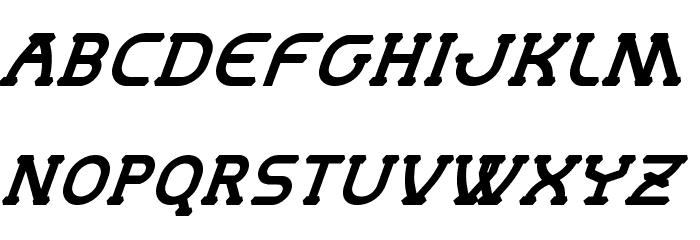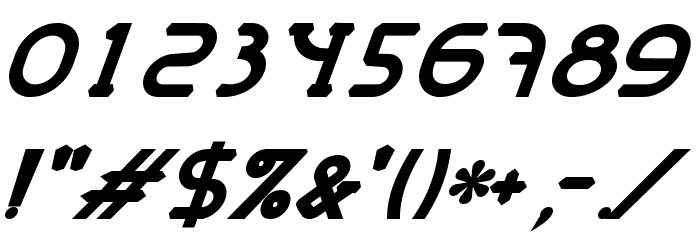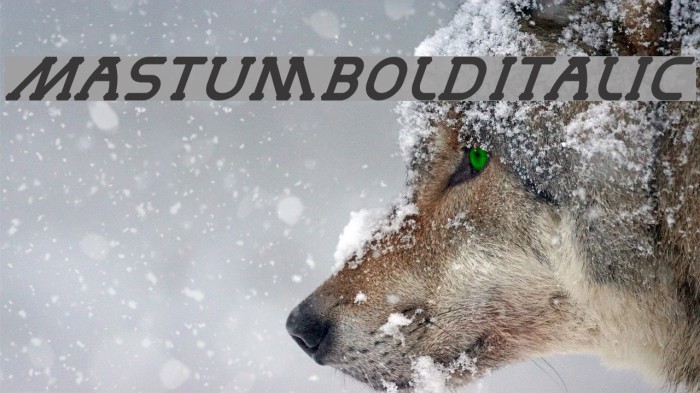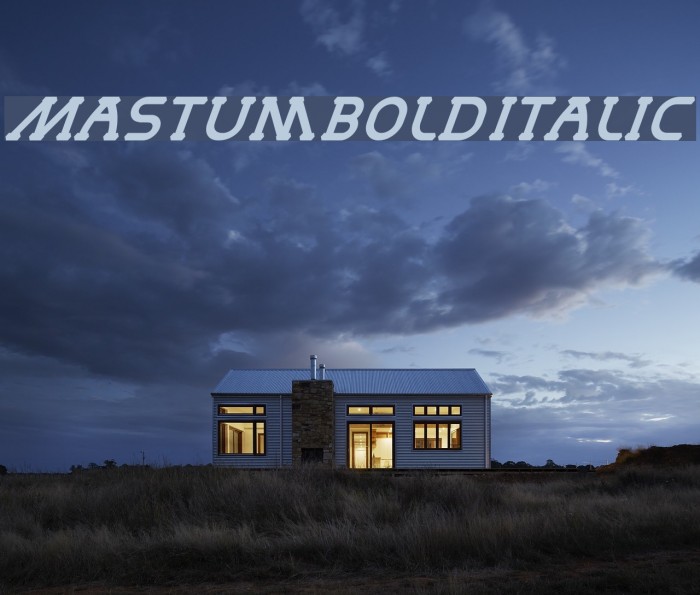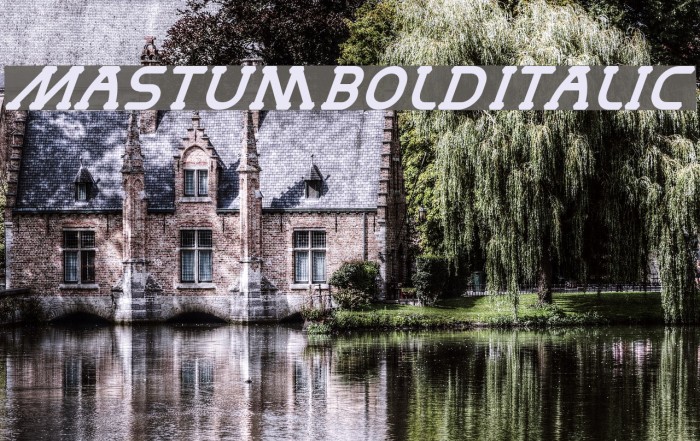
MastumBoldItalic Font
This font features a bold and italicized style, characterized by its dynamic and forward-leaning posture. The letters are robust with a strong presence, making them suitable for impactful designs. The strokes are consistent in thickness, providing a uniform appearance across all characters. The uppercase and lowercase letters maintain a cohesive look, while the numerals and special characters are designed to complement the overall aesthetic. The font's style is both modern and slightly decorative, offering versatility for various design applications.
A bold, italicized font with a modern and slightly decorative style.
- Proposed Projects: Ideal for branding, headlines, posters, and any design requiring a strong visual impact.